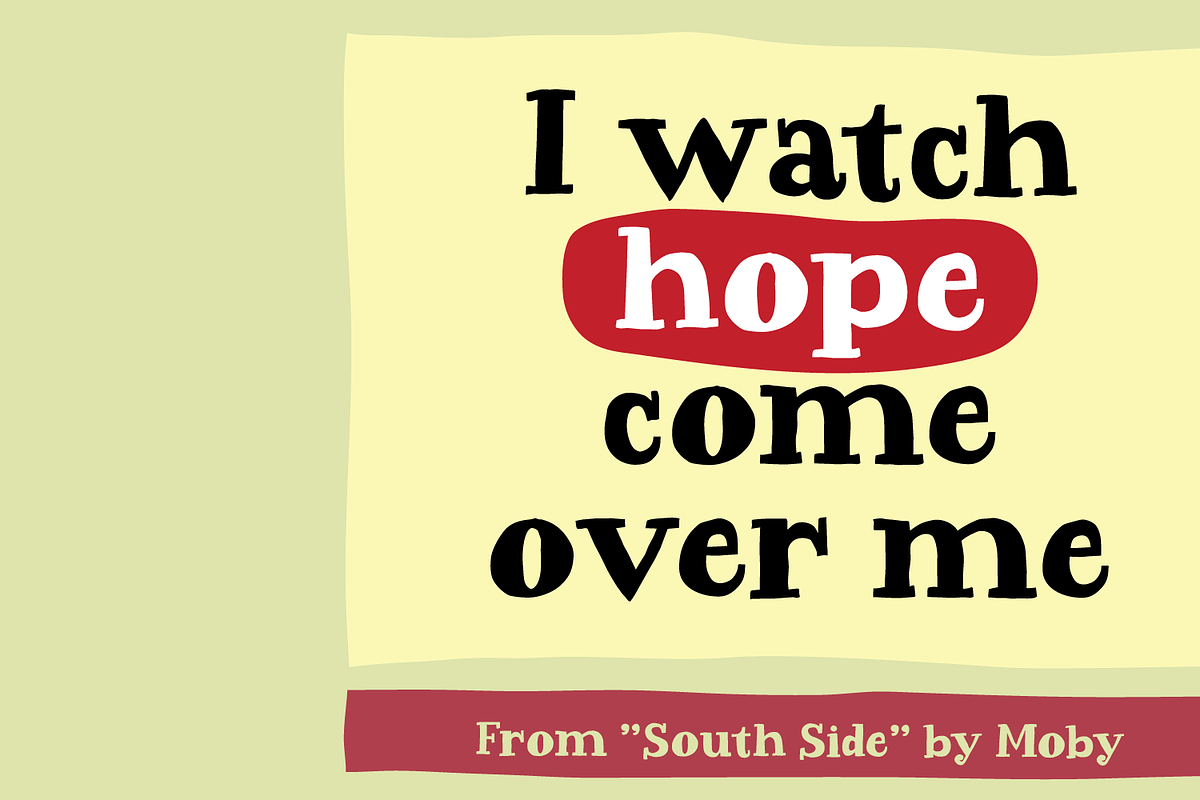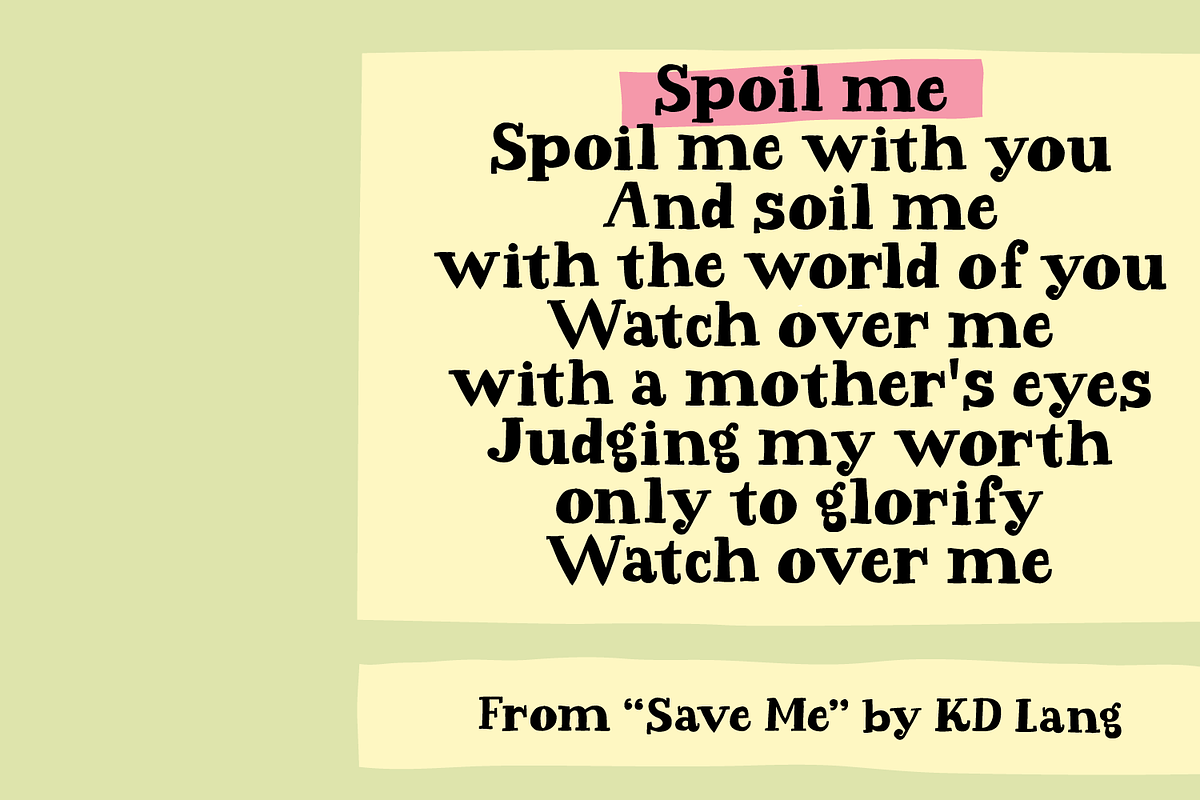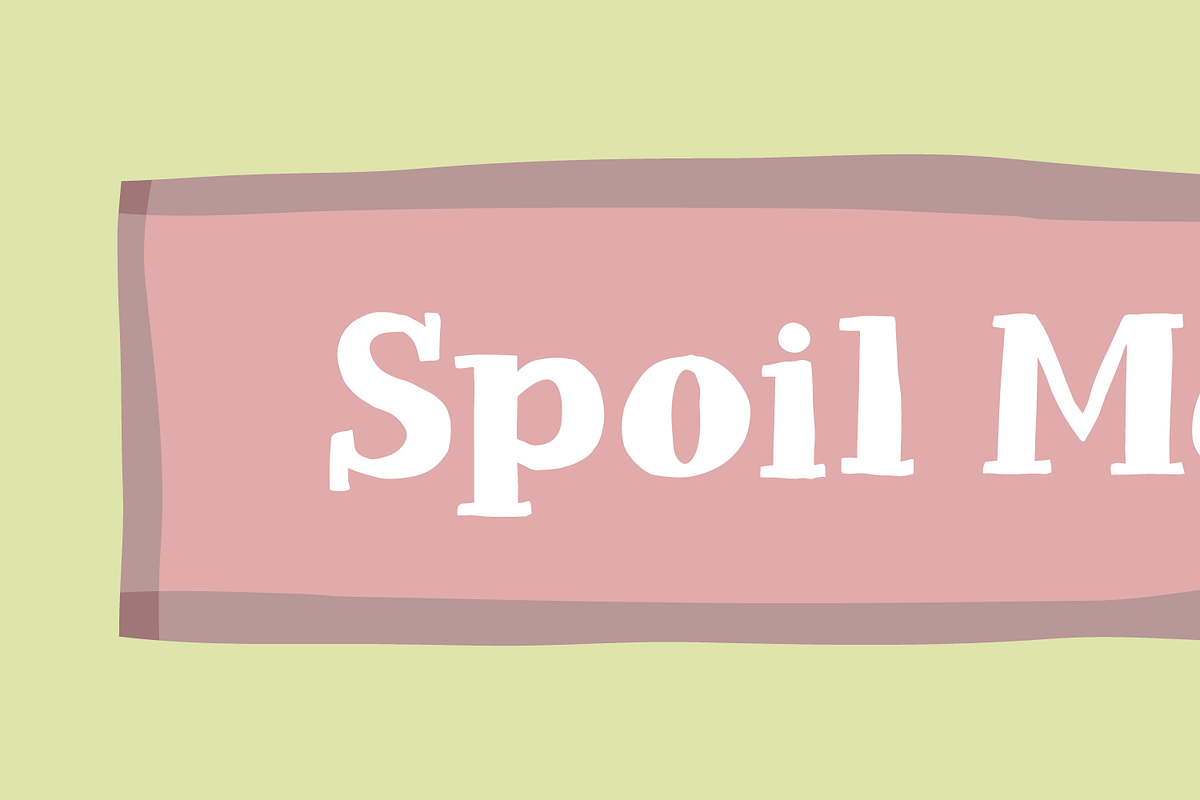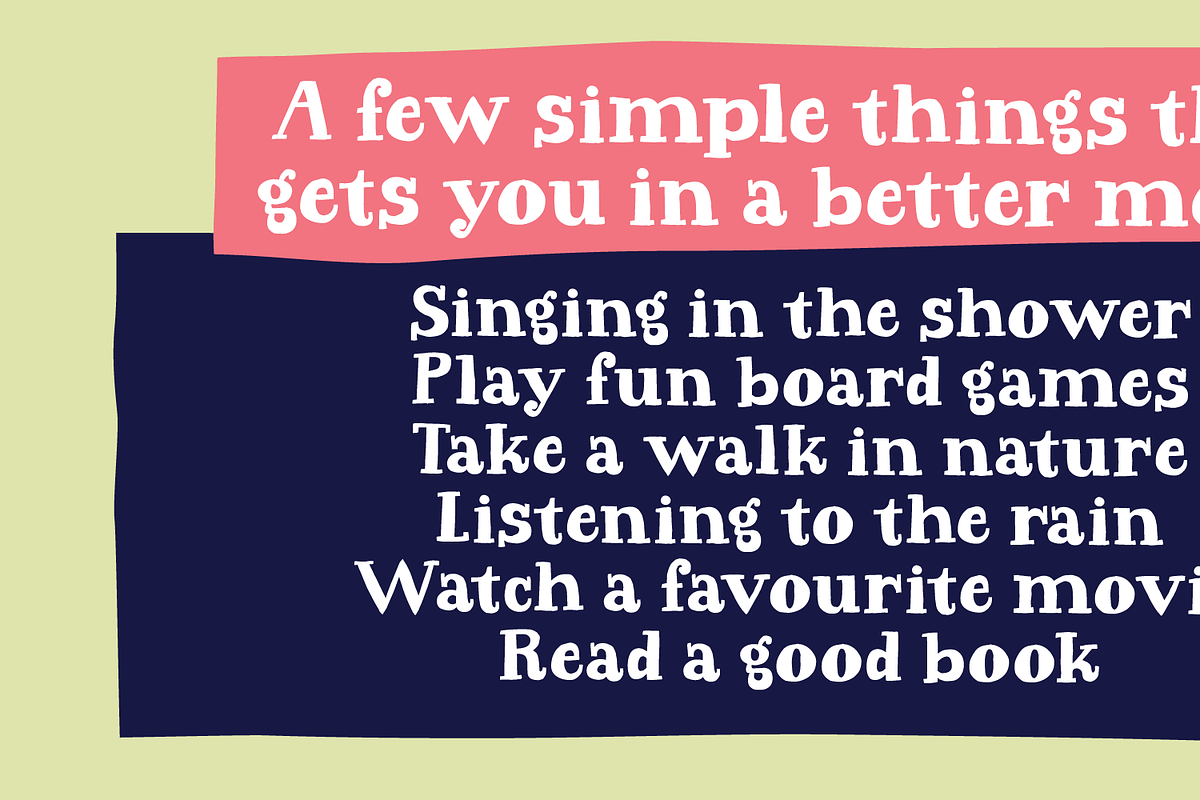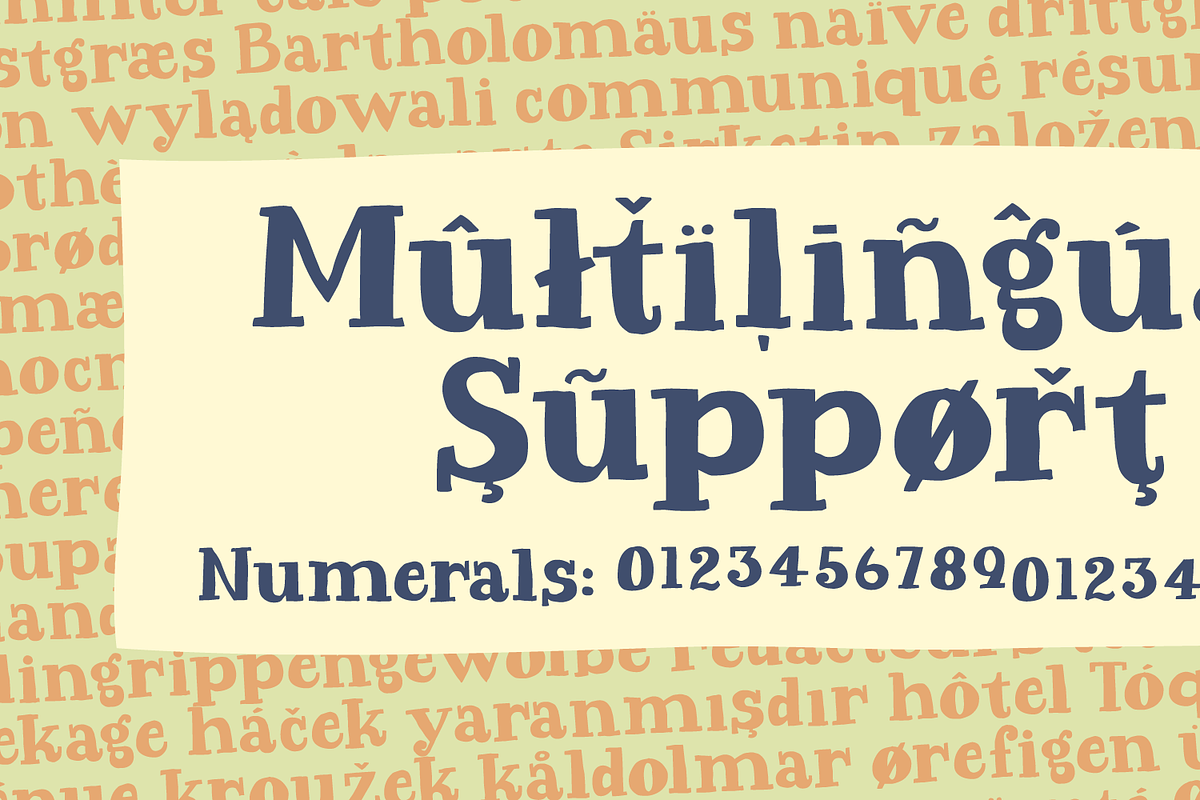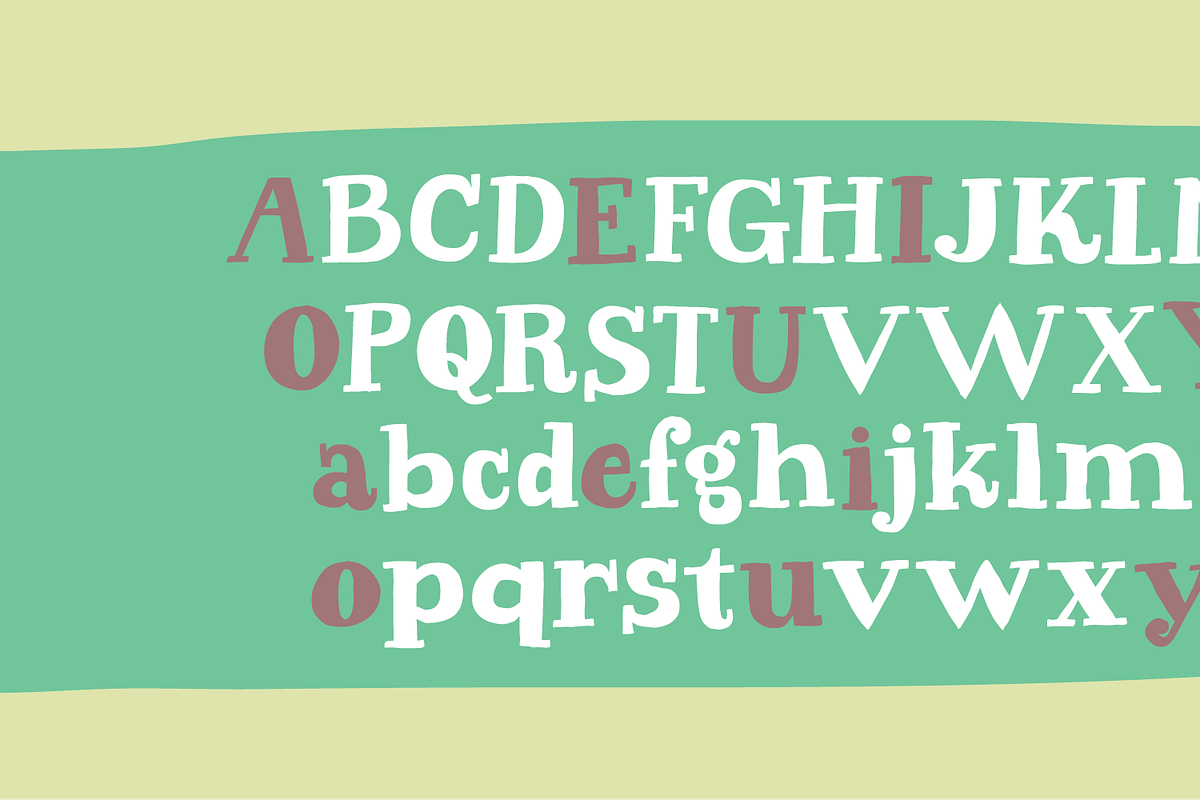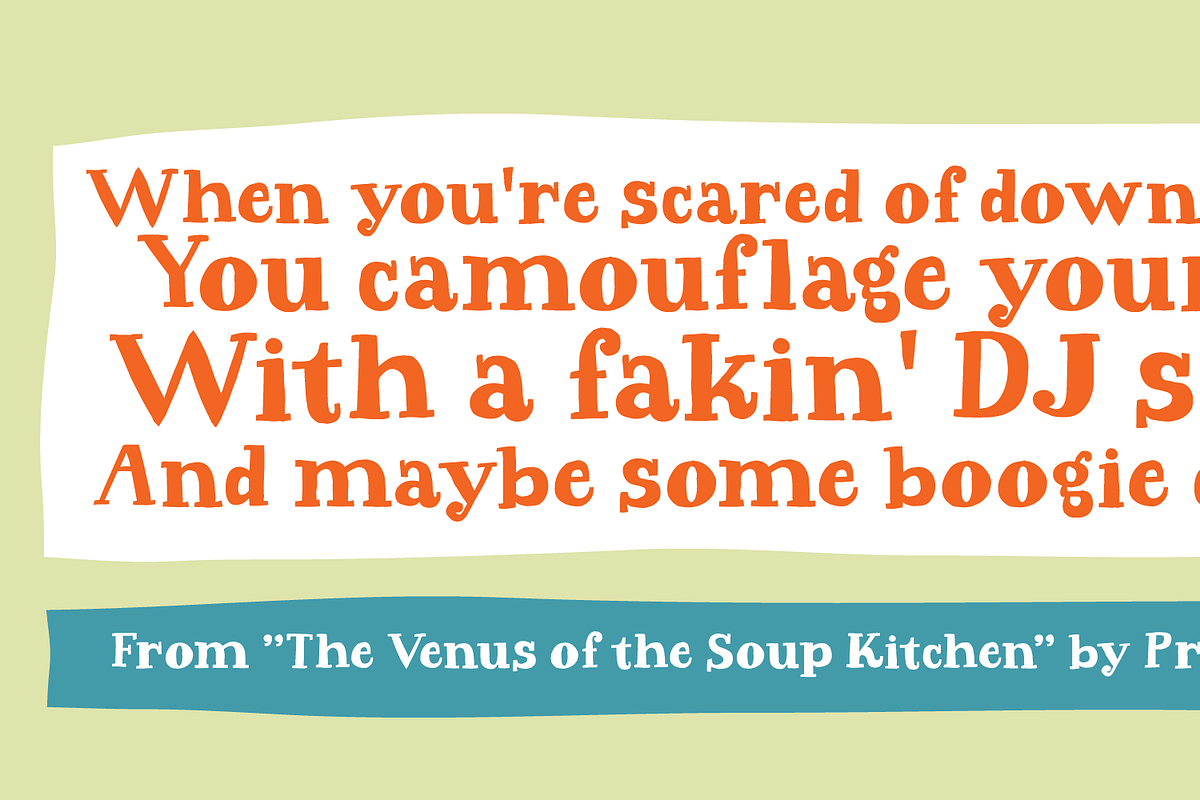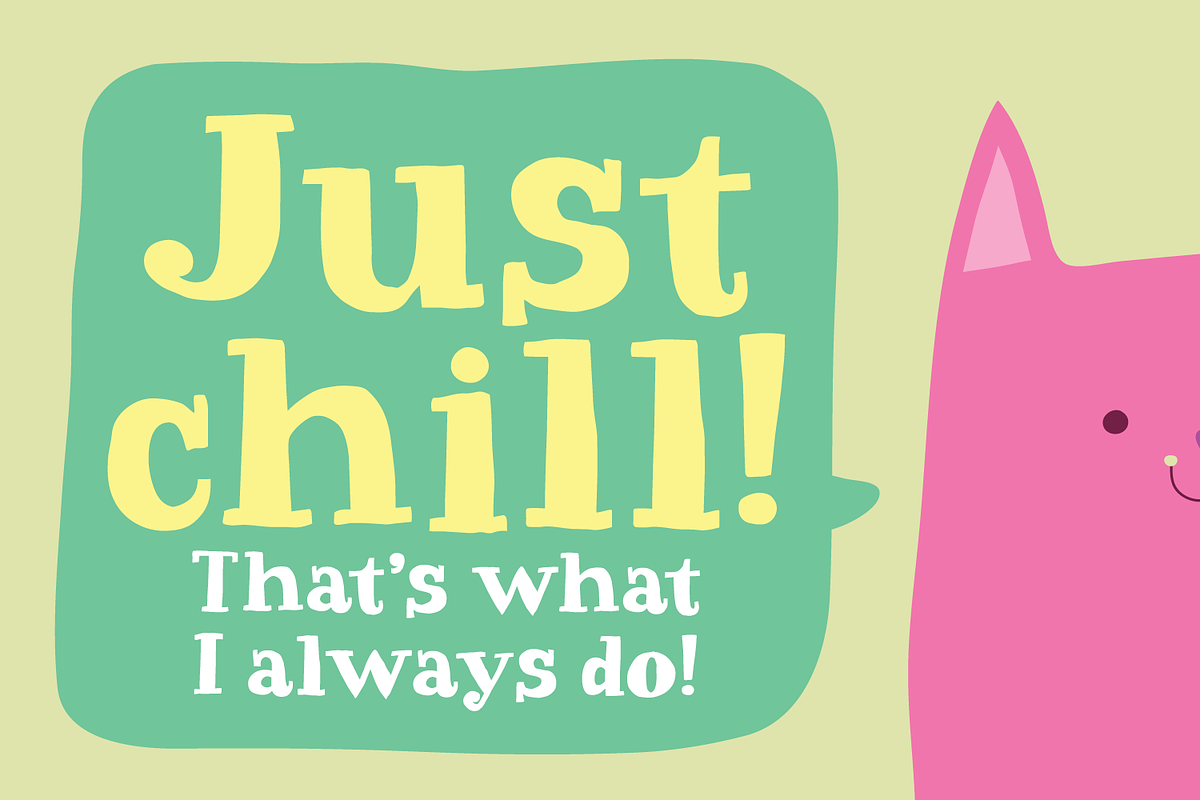
Spoil me - please!
Say hello to my chunky, uneven and eccentric seriffed font. Uneven strokes and slightly strange widths and breadths along with unpredictable serifs - most of them are just as the classic rules dictates, others may be missing or in a wrong place. The sum of this is this charming and cheerful expressive font - ideal for posters, quotes or creative messages where a handmade look is needed. I can't wait to see what you plan to create with this font - because I actually had quite some fun making it! :)